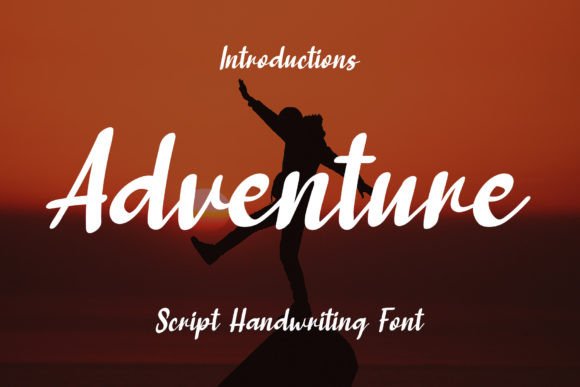
The Adventure Font: A Charming and Elegant Companion for Your Design Journey
Have you ever found yourself scrolling through font libraries, searching for that perfect handwritten touch for your design project? I certainly have. It was during a particularly demanding project, with a tight deadline looming, that I stumbled upon the Adventure font. Its elegant and charming feel immediately caught my eye, and I knew I had found what I was looking for.
As I began working with the Adventure font, I was thrilled to discover its versatility and beauty. Here are some aspects that I absolutely love:
- ✨ Elegant and charming feel: The Adventure font exudes a sense of sophistication and whimsy, making it perfect for a wide range of design projects.
- ✅ Highly legible: Despite its elegant feel, the font remains highly legible, even at smaller sizes.
- 💕 Emotional connection: The handwritten touch of the Adventure font creates an instant emotional connection with your audience, making your designs more relatable and engaging.
However, as with any font, there are a few quirks to be aware of:
- ⚠️ Limited use of all-caps: While the font looks stunning in upper and lower case, it’s not ideal for all-caps text, as some letters may appear less balanced.
- 🤔 Requires attention to spacing: To get the most out of the Adventure font, be prepared to adjust the letter spacing to achieve the perfect balance.
The Story Behind the Adventure Font
While the origins of the Adventure font are shrouded in mystery, it’s clear that its designer aimed to create a typeface that would evoke a sense of elegance and whimsy. The result is a font that feels both charming and refined, perfect for a wide range of design applications.
| What makes the Adventure font suitable for wedding designs? | The font’s elegant and charming feel makes it perfect for wedding invitations, thank you cards, and other wedding-related designs. |
| Is the Adventure font available in different weights or styles? | While the font may not have multiple weights or styles, its versatility and elegance make it suitable for a wide range of design applications. |
| Can I use the Adventure font for digital designs, such as social media graphics? | Absolutely! The Adventure font is perfect for digital designs, including social media graphics, blog posts, and more. |